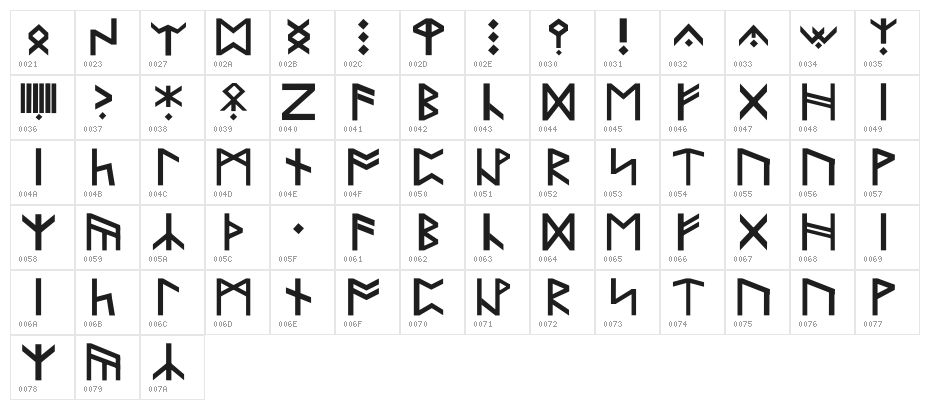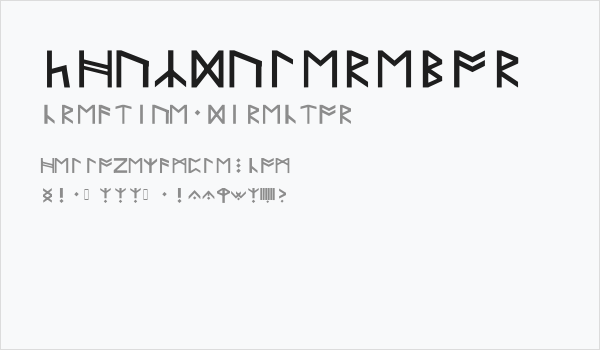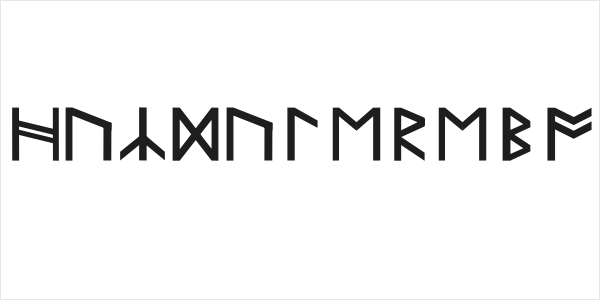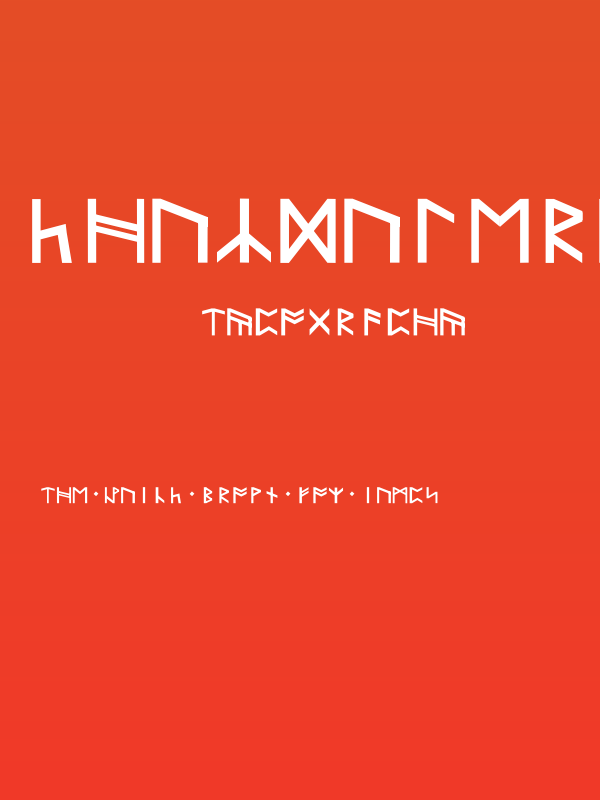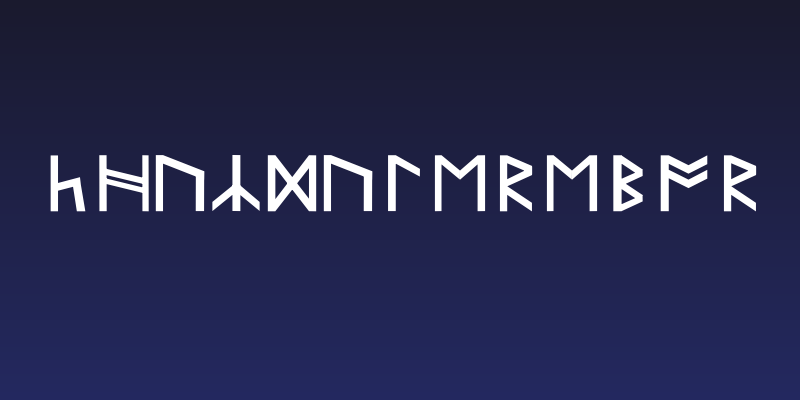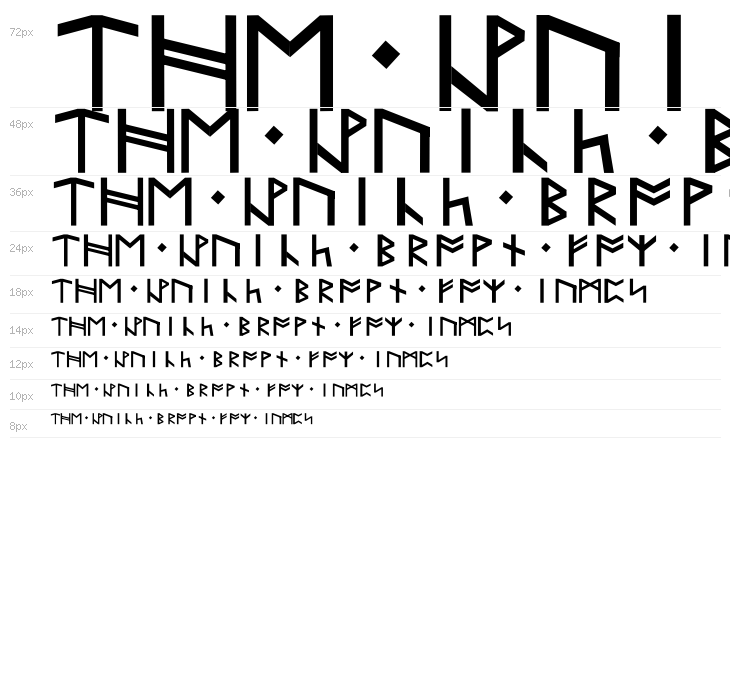
KhuzdulErebor Font
KhuzdulErebor Description
This font is inspired by ancient runic alphabets, featuring angular and geometric shapes that evoke a sense of mystery and antiquity. The characters are bold and distinct, with sharp edges and a uniform stroke width that gives them a strong presence. The design is reminiscent of inscriptions found on ancient artifacts, making it ideal for projects that require a historical or fantasy theme. The font's unique style is both decorative and functional, suitable for creating eye-catching titles or thematic designs.
| Proposed Projects | Ideal for fantasy-themed projects, game design, movie titles, or historical recreations. |